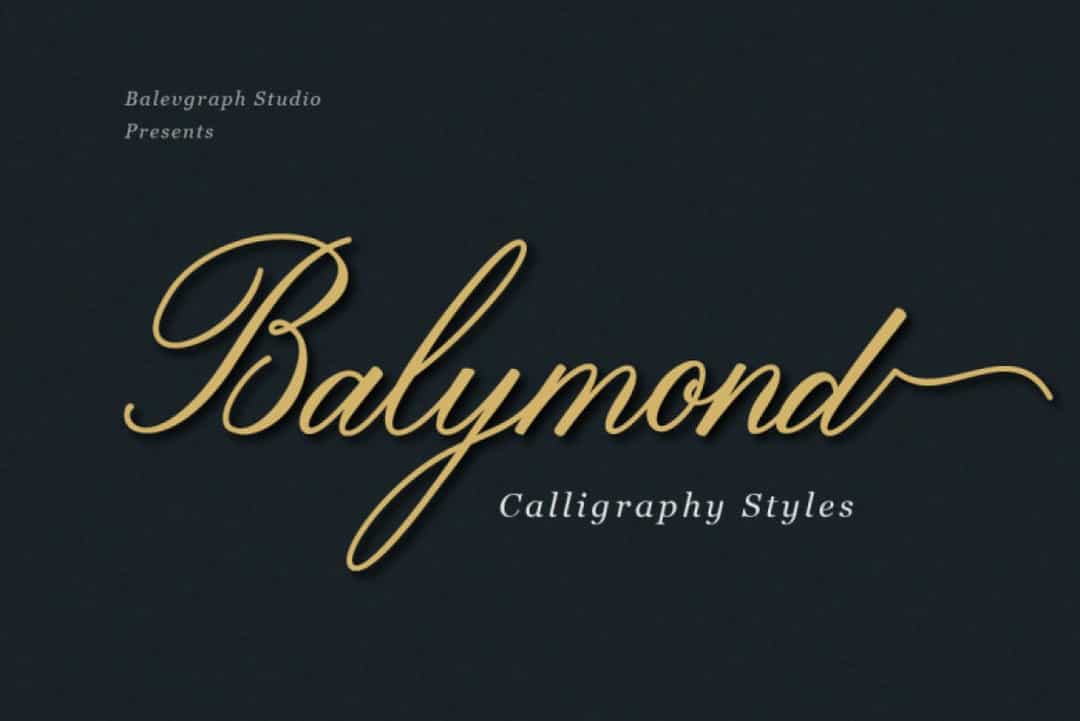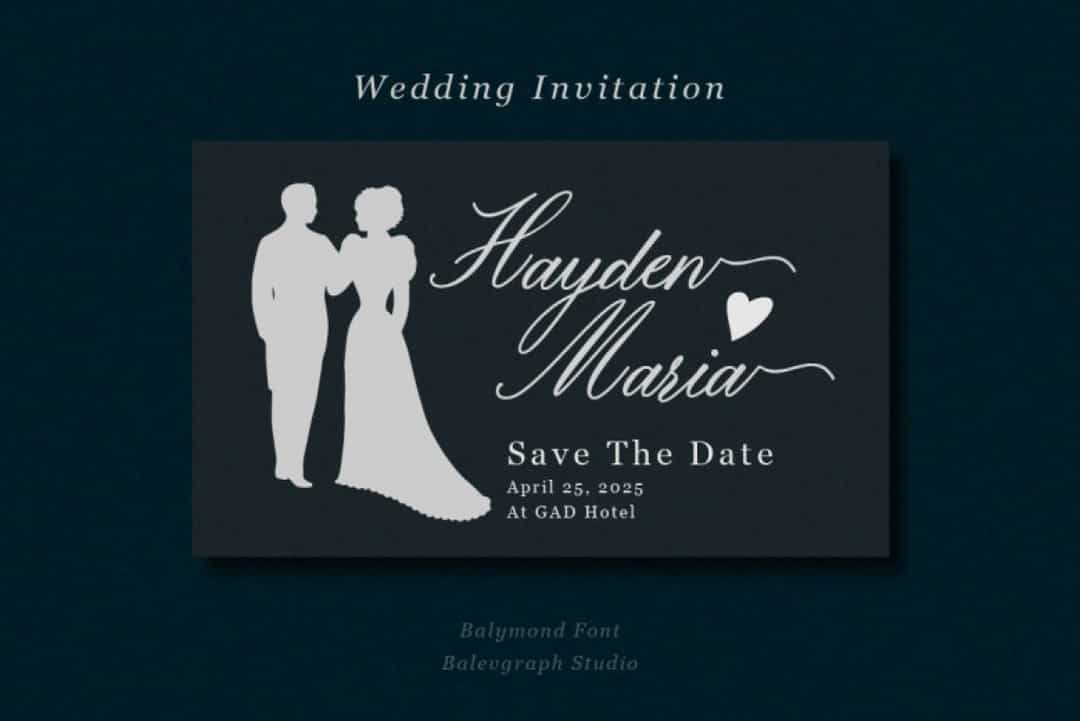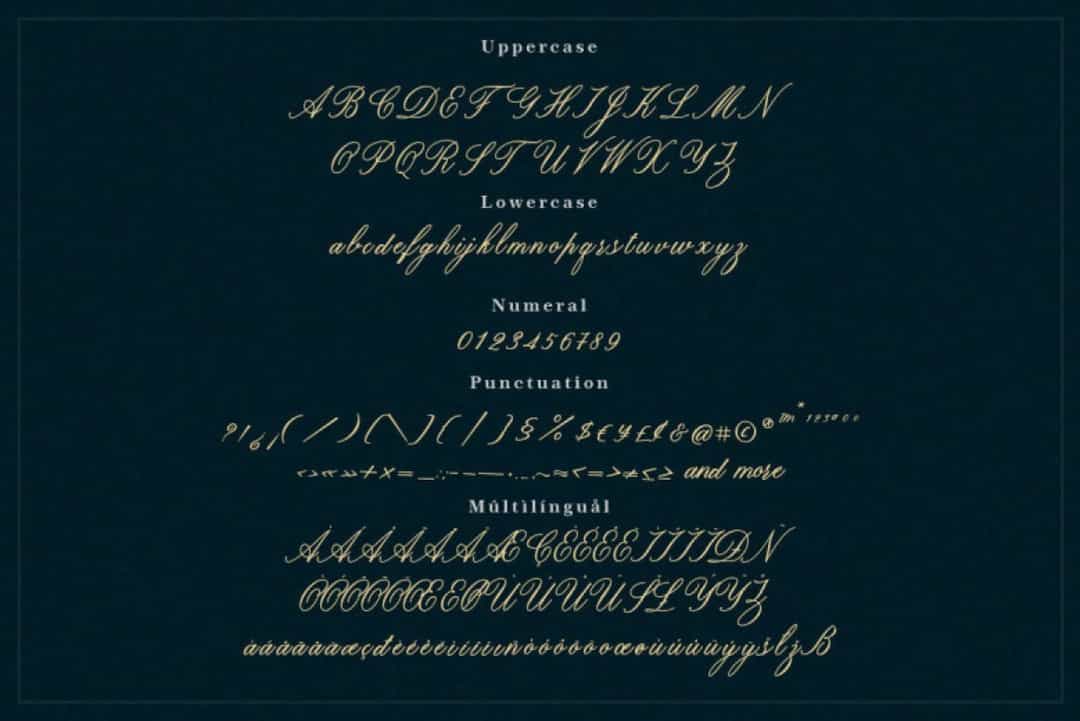
Discover Balymond Font, part of the Calligraphy collection—a versatile and unique font perfect for adding a personal touch to your projects. Download it for free and enjoy crafting designs with style, from invitations to social media posts. This font is available exclusively for personal use, giving you the freedom to create without limits. Unlock your creativity with Balymond Font today!
Balymond Caligraphy Font is an amazing script font. Stunning in design and exquisite in execution, this font can help make any design come alive! PUA encoded so users can access every glyph and swash effortlessly!